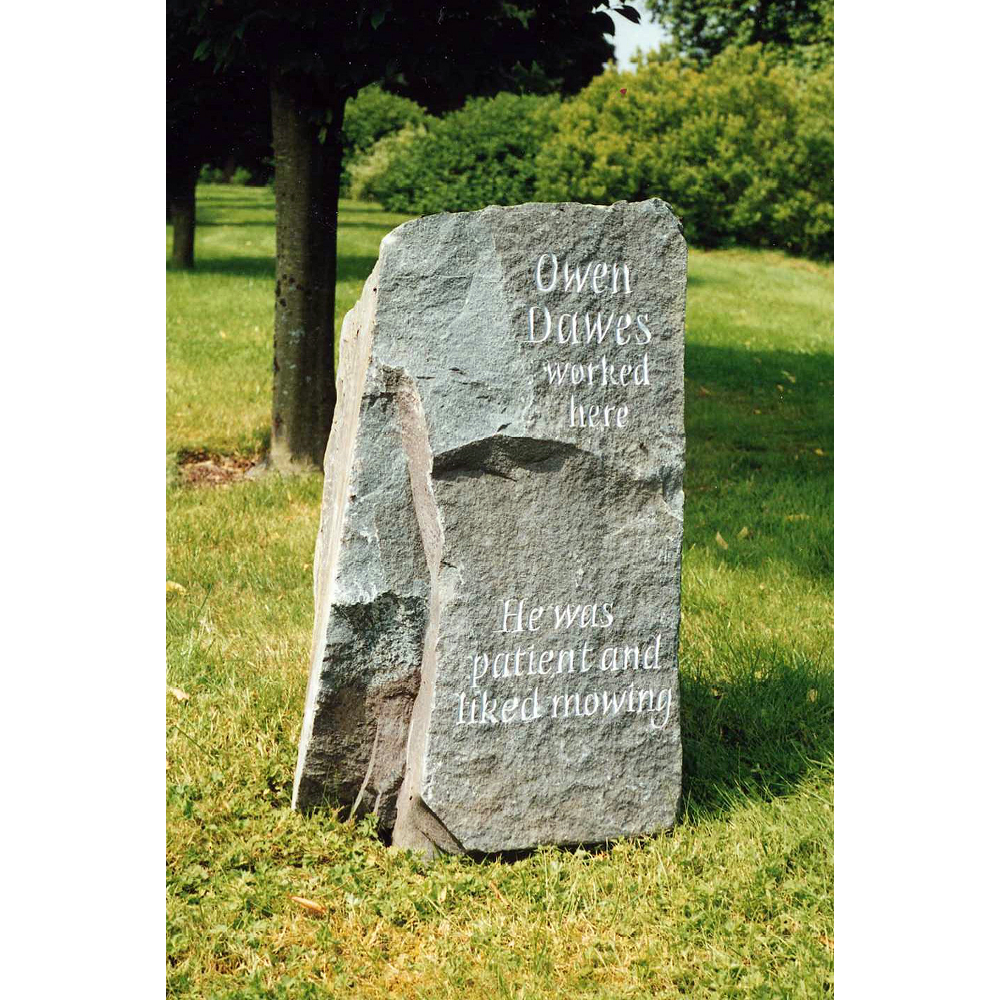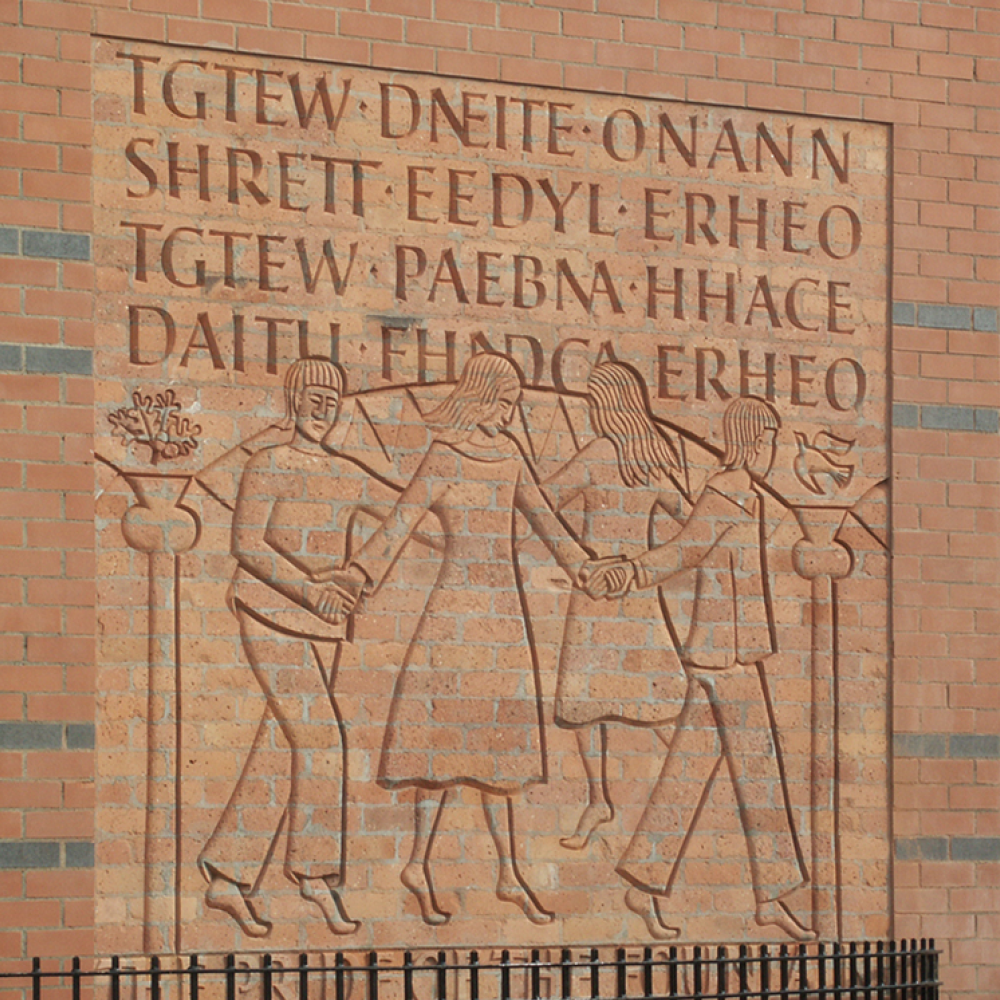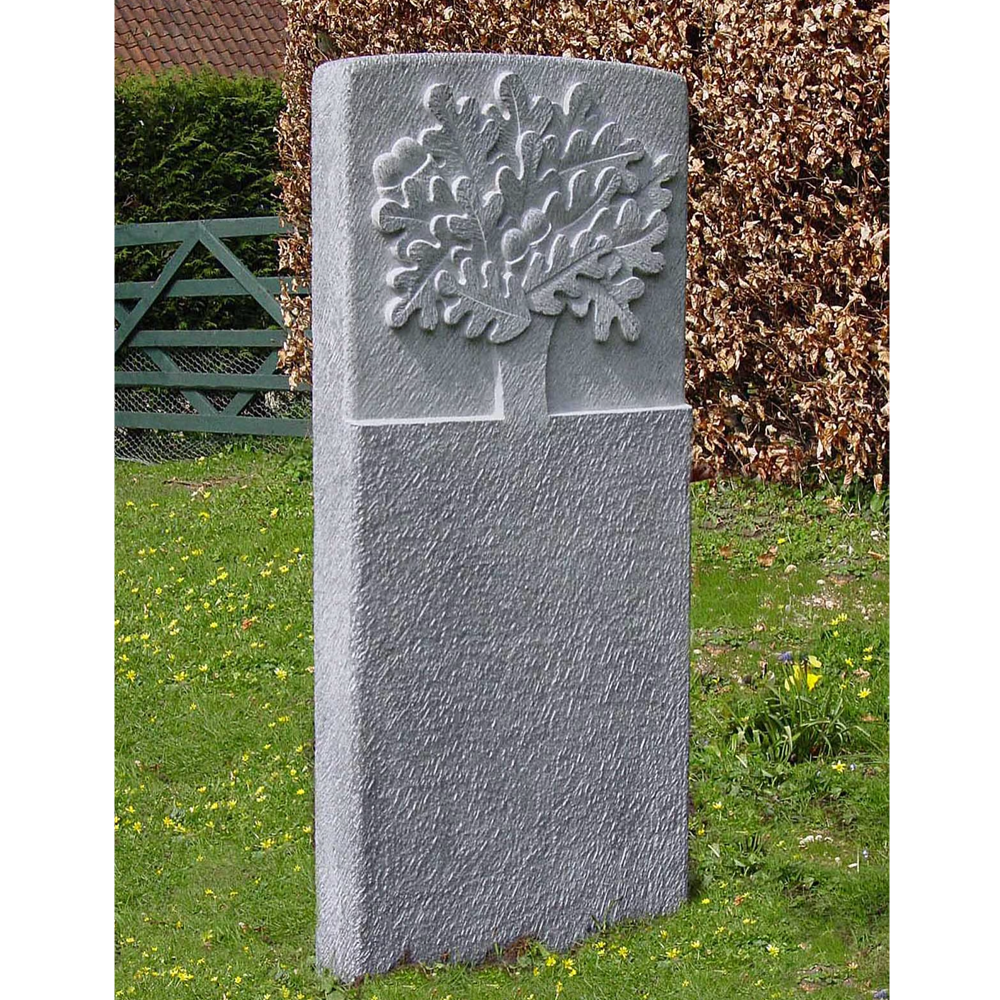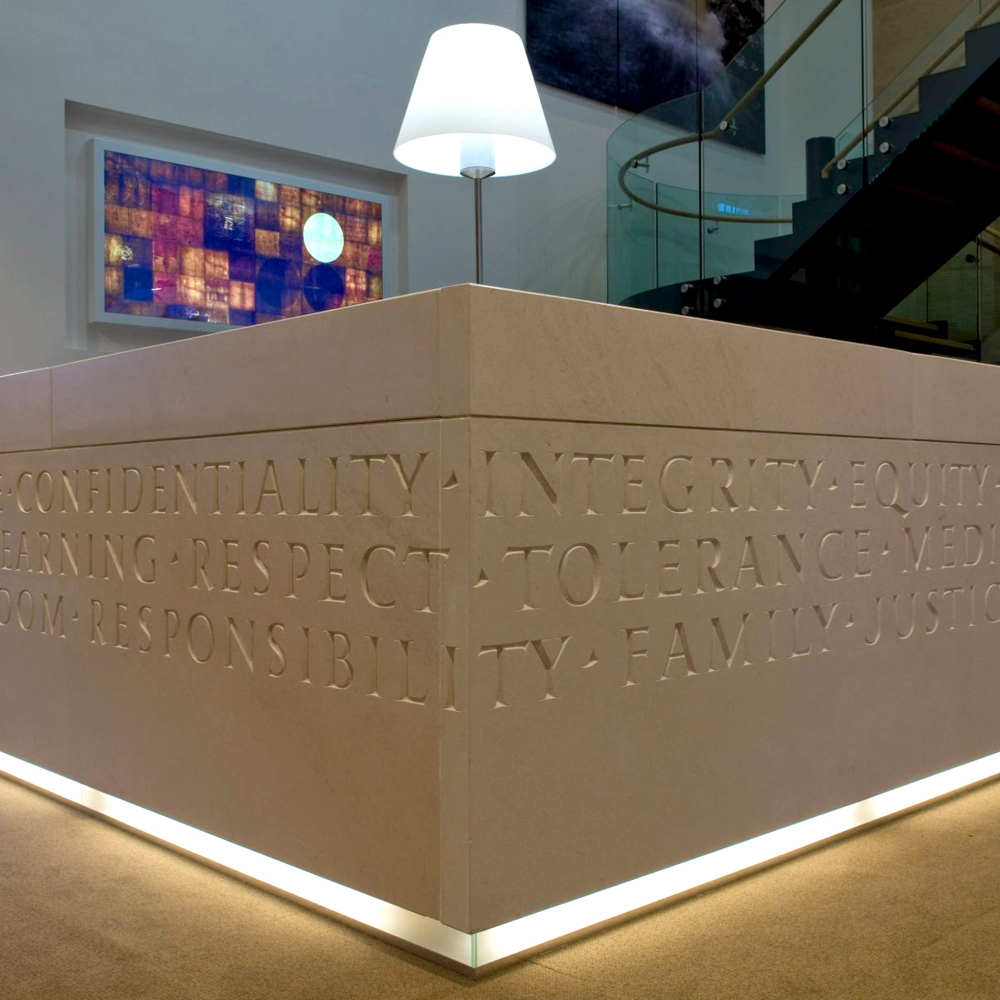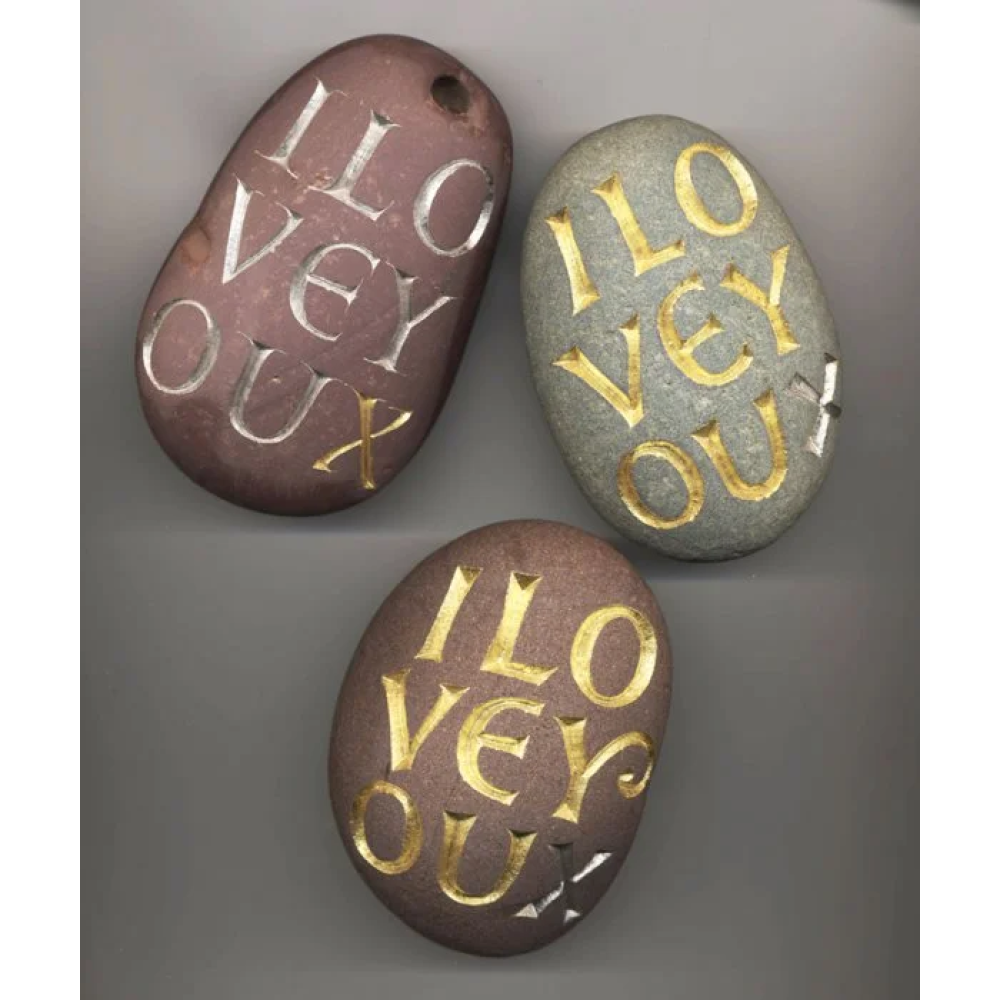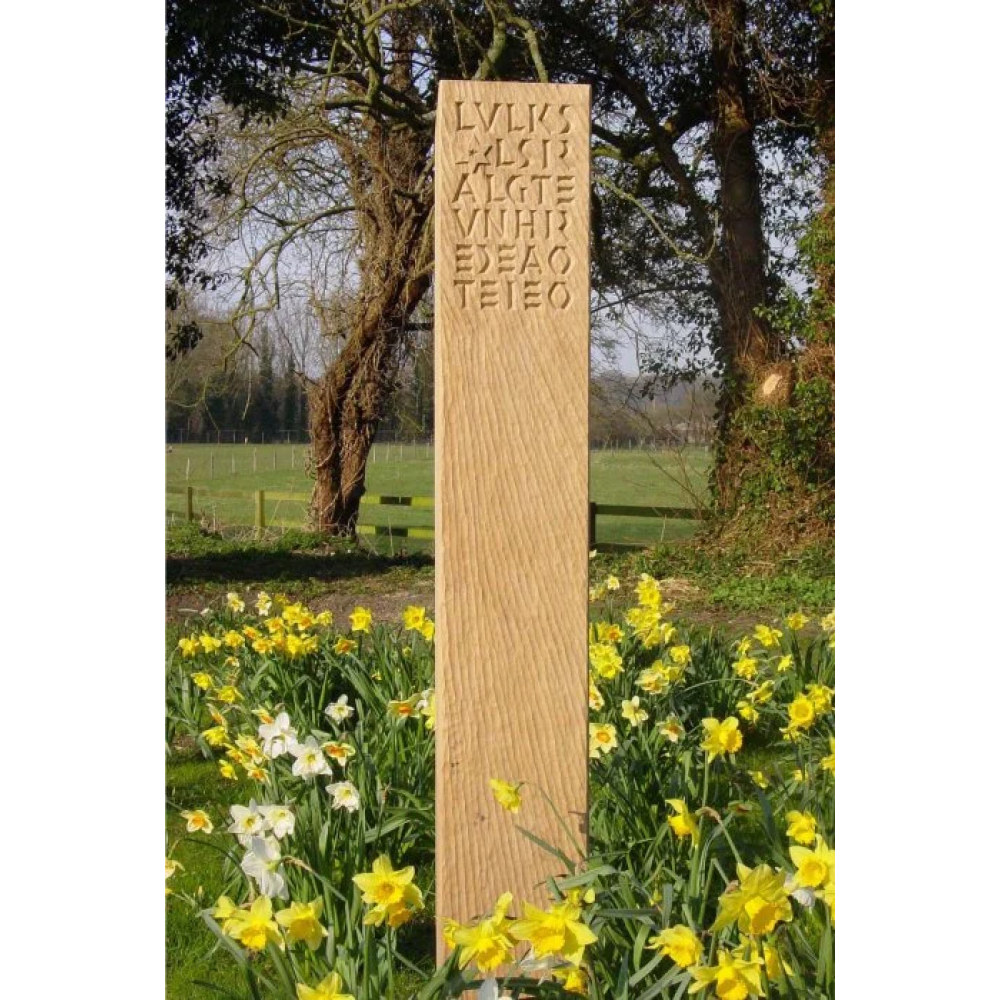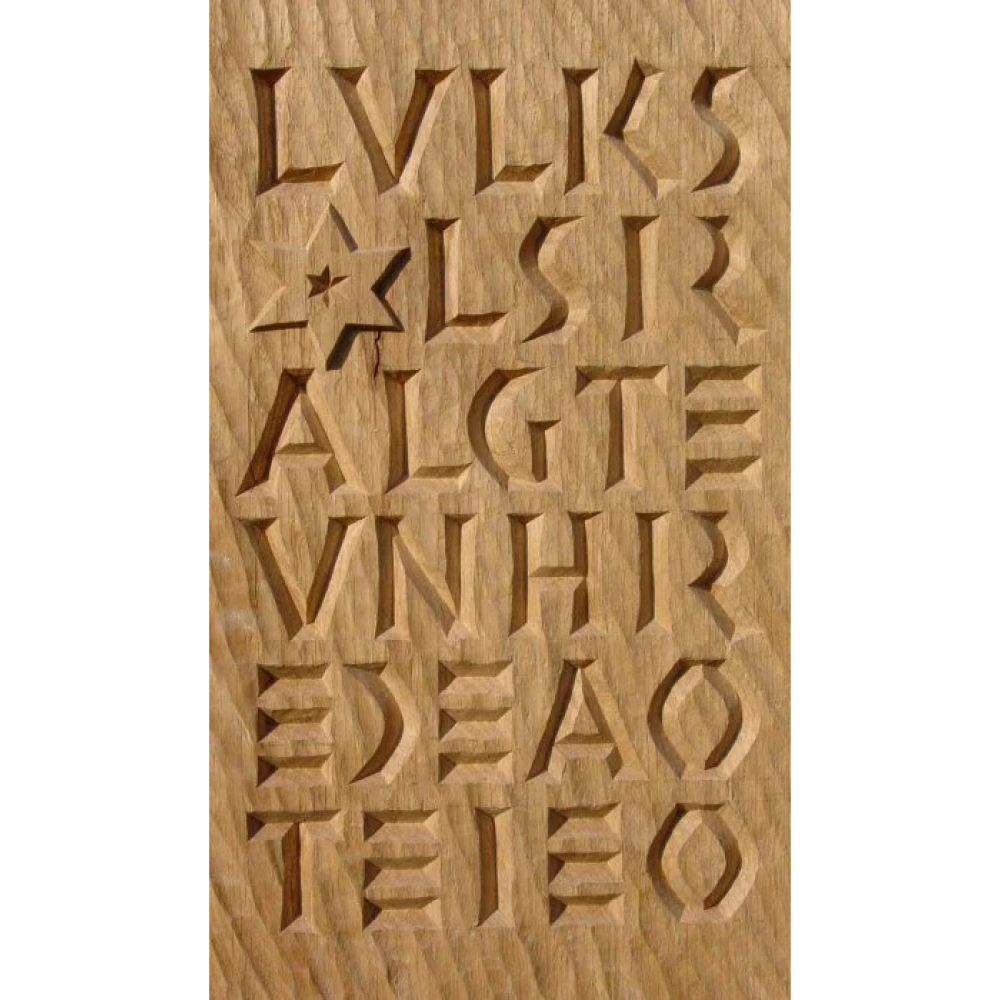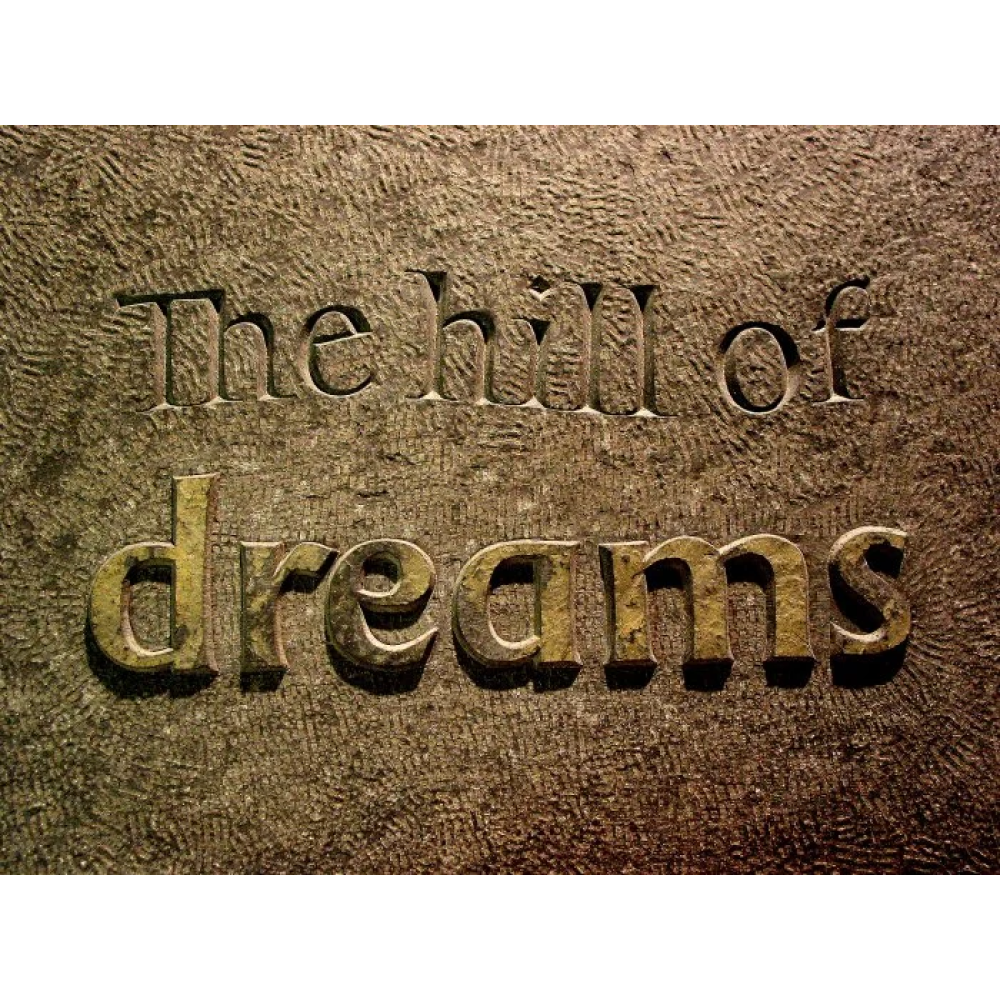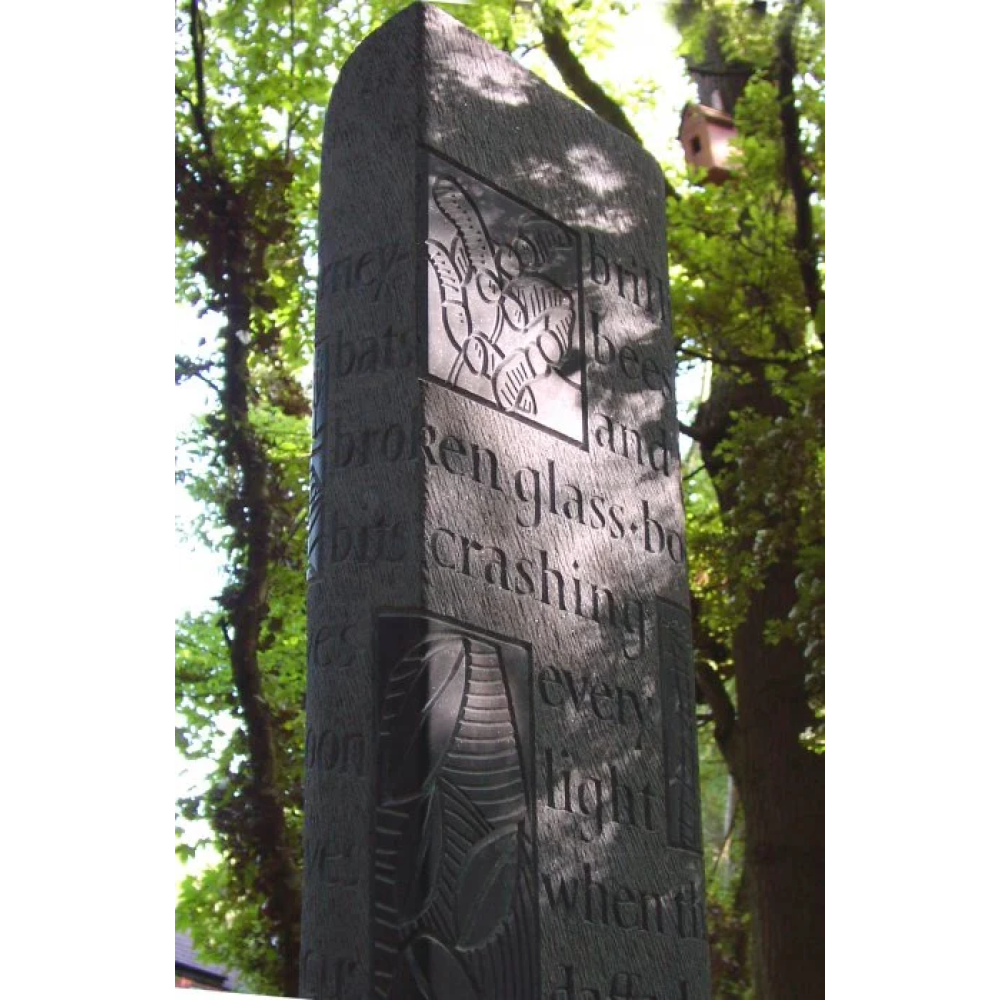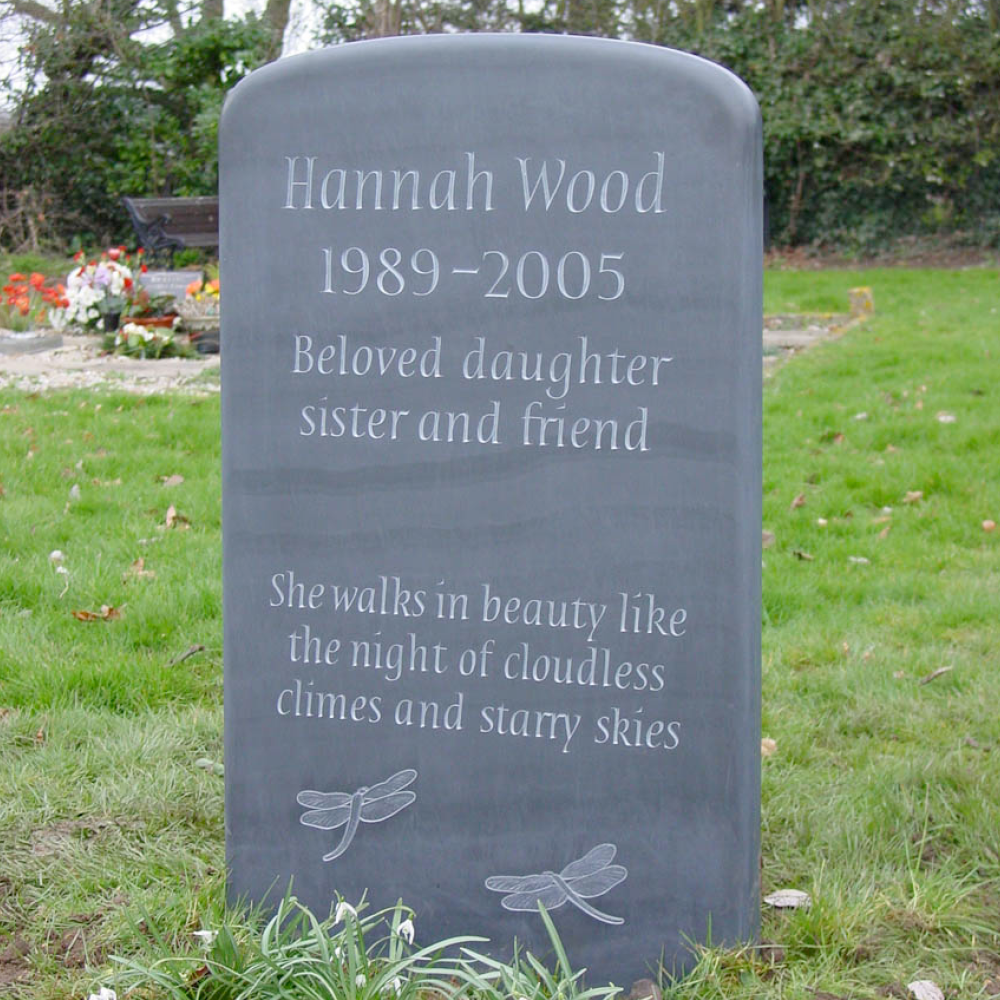
Charlotte Howarth is a sculptor, designer, stone carver and letterer and works across the UK and Ireland.
Working in a variety of materials her work shows a deep sensitivity to line, pattern and texture and is imbued with a sense of fun and joyfulness. Her work is influenced by the tradition of recording events from everyday life and creating a lasting memory. The memorials she makes are beautifully carved and will weather and age gracefully.
Much of her work is done through collaboration, this can be with communities, a family or a single client but it always involves a sensitive approach and an outcome that it appropriate and reflects the clients aspirations for the work.